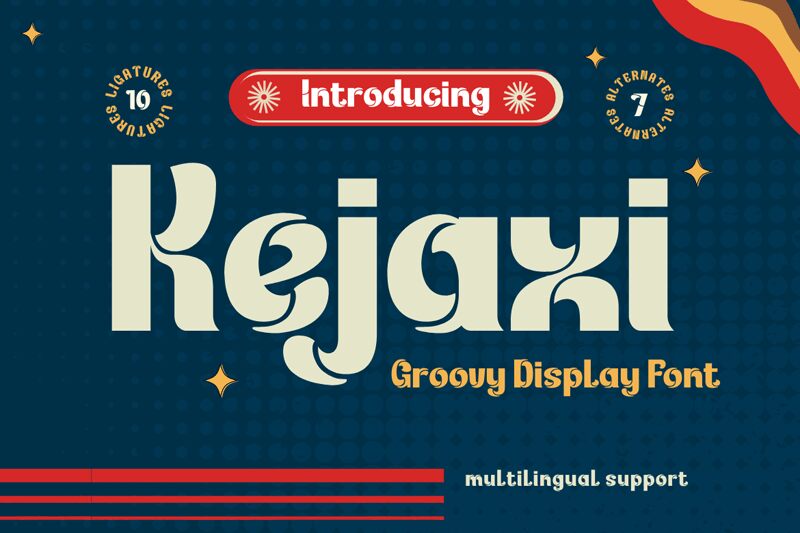
Kejaxi-Regular
Plunge into the vibrant, retro-fueled world of Kejaxi, a display font that radiates nostalgia with its groovy essence. Crafted by the innovative minds at twinletter, this bold typeface stands out with its psychedelic-inspired curves and geometric precision. Kejaxi is not just a font-it's an experience that transports your creative work back to an era of daring expression and stylistic flair.
Perfect for branding ventures, editorial designs, and eye-catching packaging, Kejaxi promises to infuse your projects with an unmistakable retro vibe while maintaining a contemporary elegance. Whether you're crafting a standout headline or looking to sprinkle some vintage charm on your designs, this free display font harmoniously blends past aesthetics with modern design needs. Embrace the boldness of Kejaxi and let your creations groove with style!